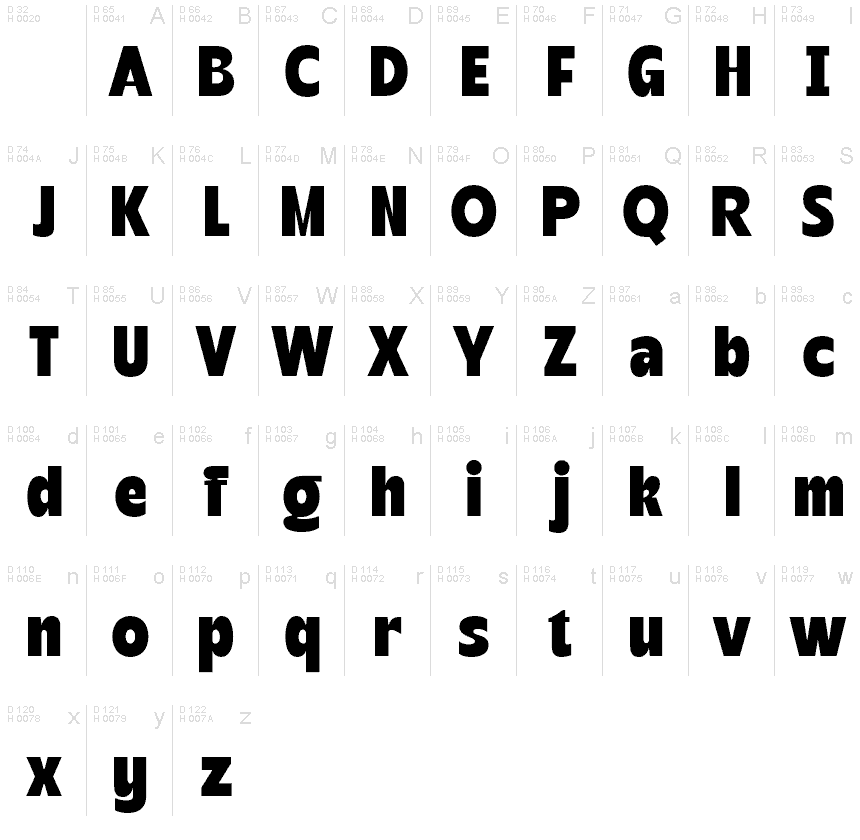
CS Bricker Regular Demo
CS Bricker font by Craft Supply Co. is a bold sans serif typeface with clean lines, geometric structures, and a modern and cohesive appearance. Each organized character is well-constructed to match the structured overall design of this free font.
Get to work on book covers, posters, flyers, brochures, magazine covers and all types of printed material. The font will even make splendid visuals for branding projects such as logotypes or typography for business cards and letterheads.